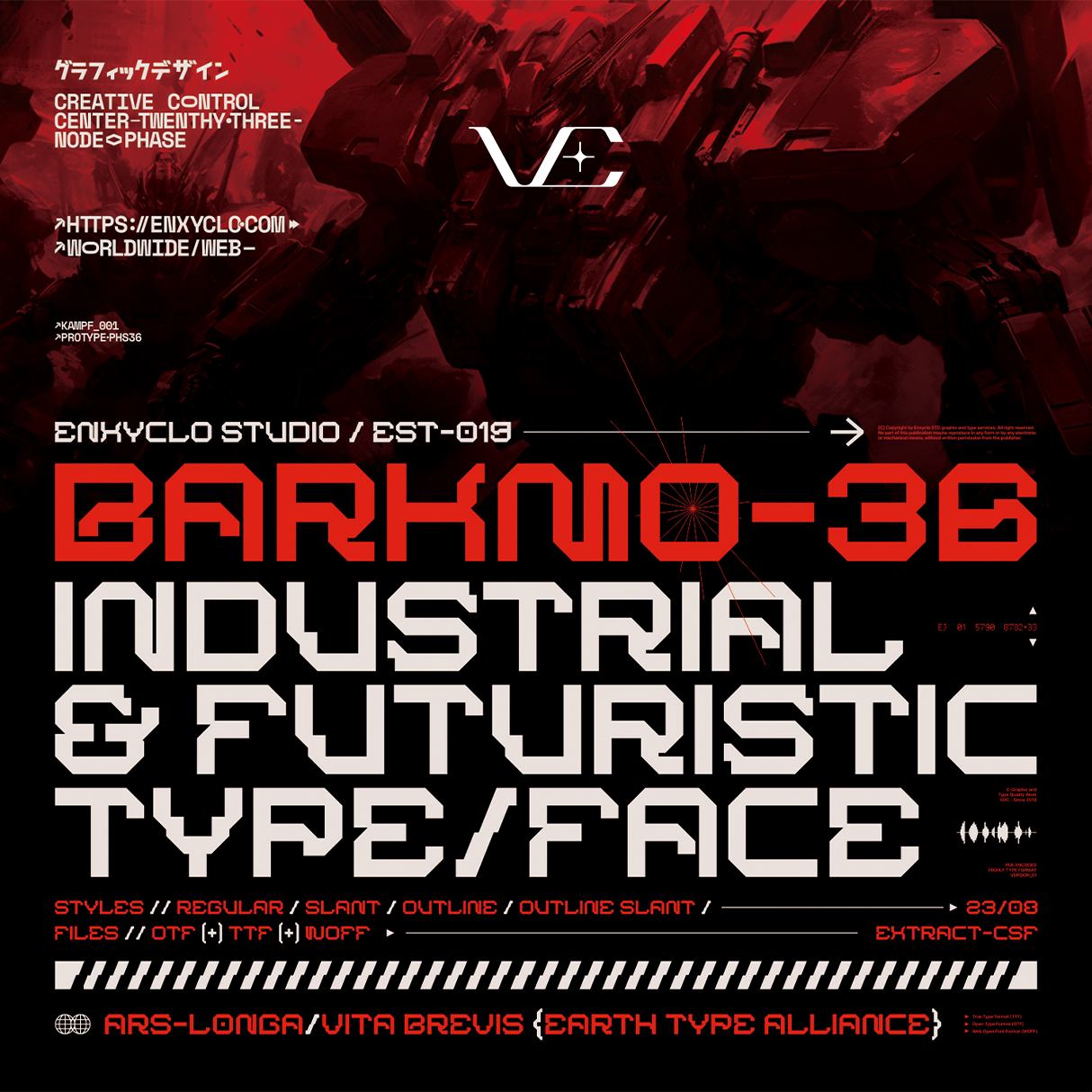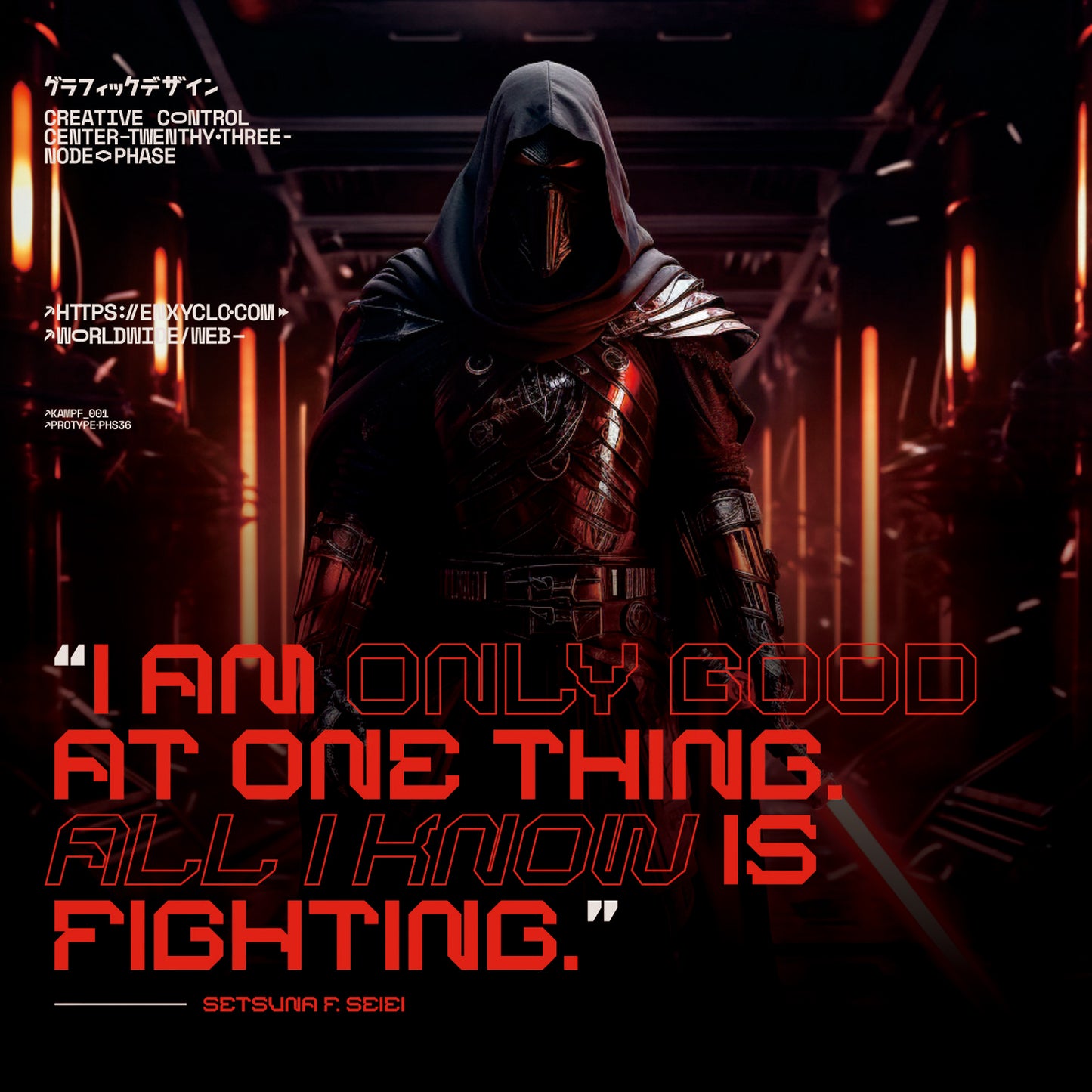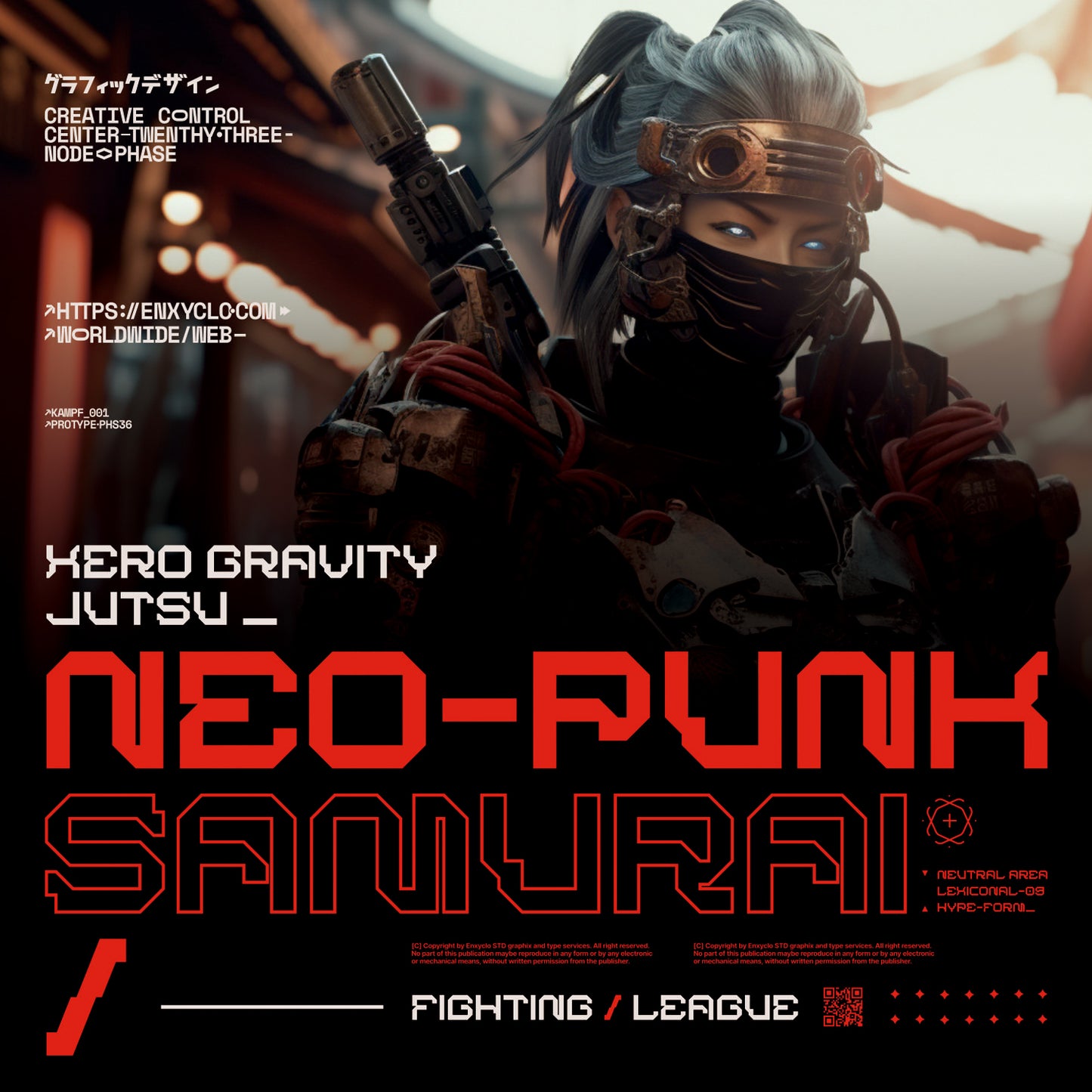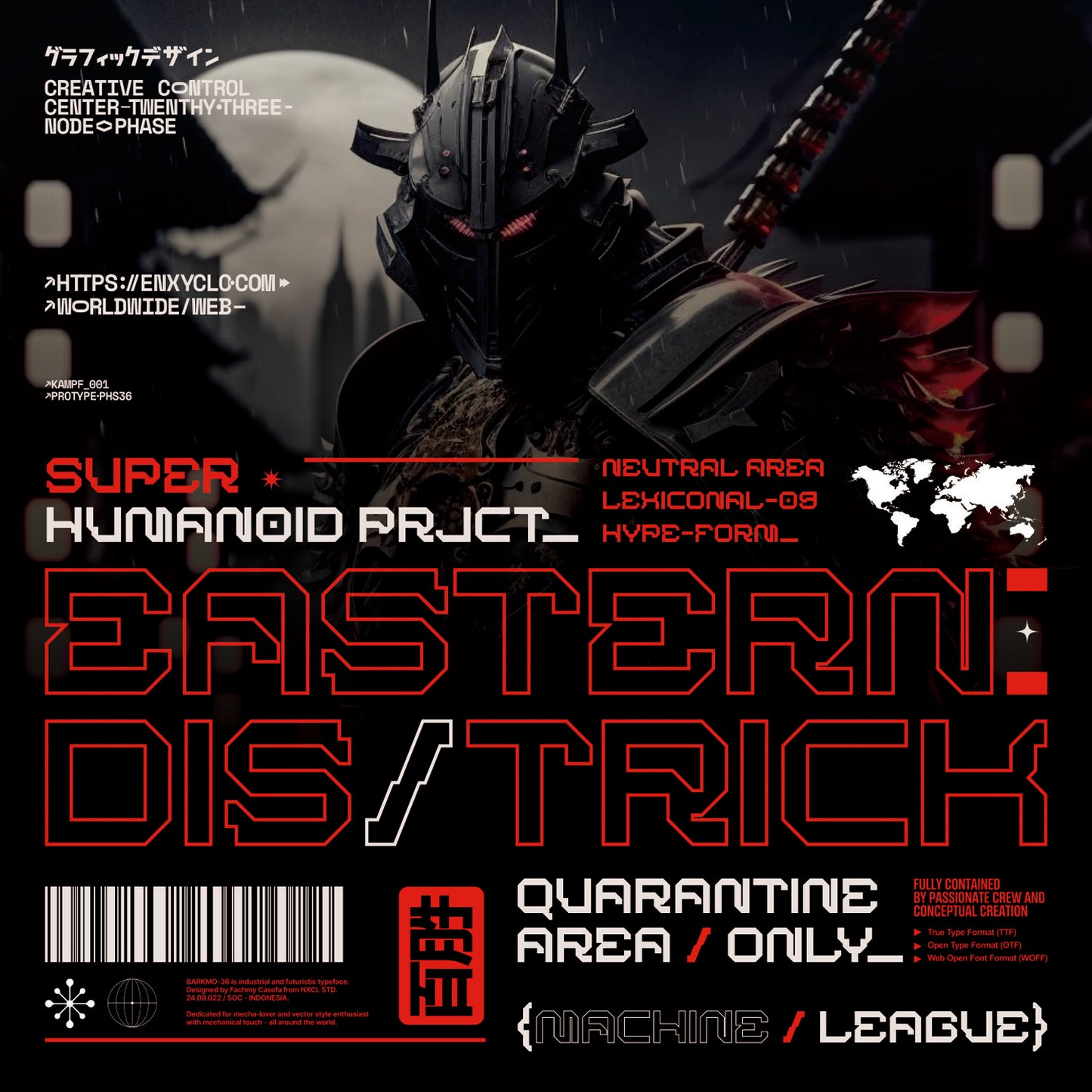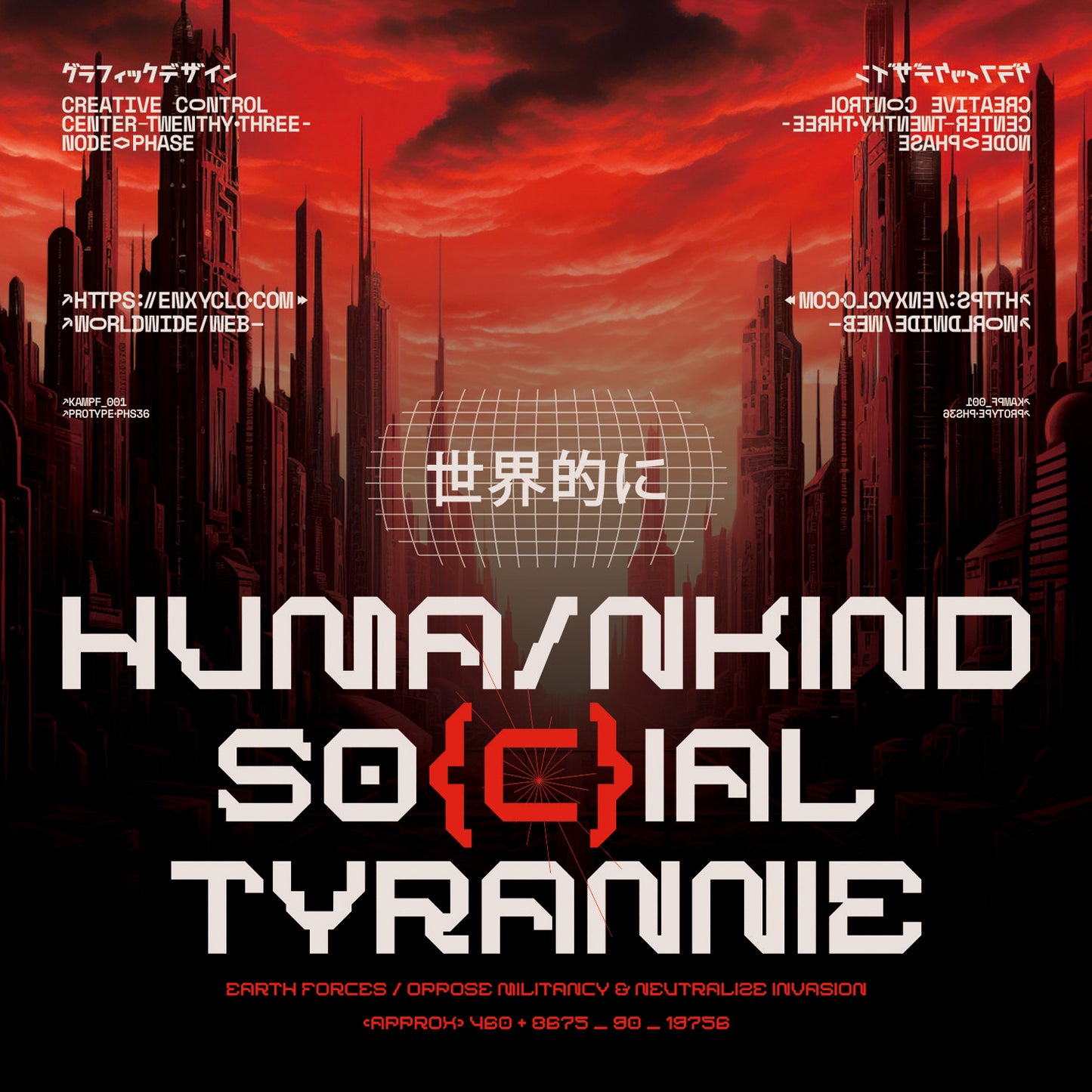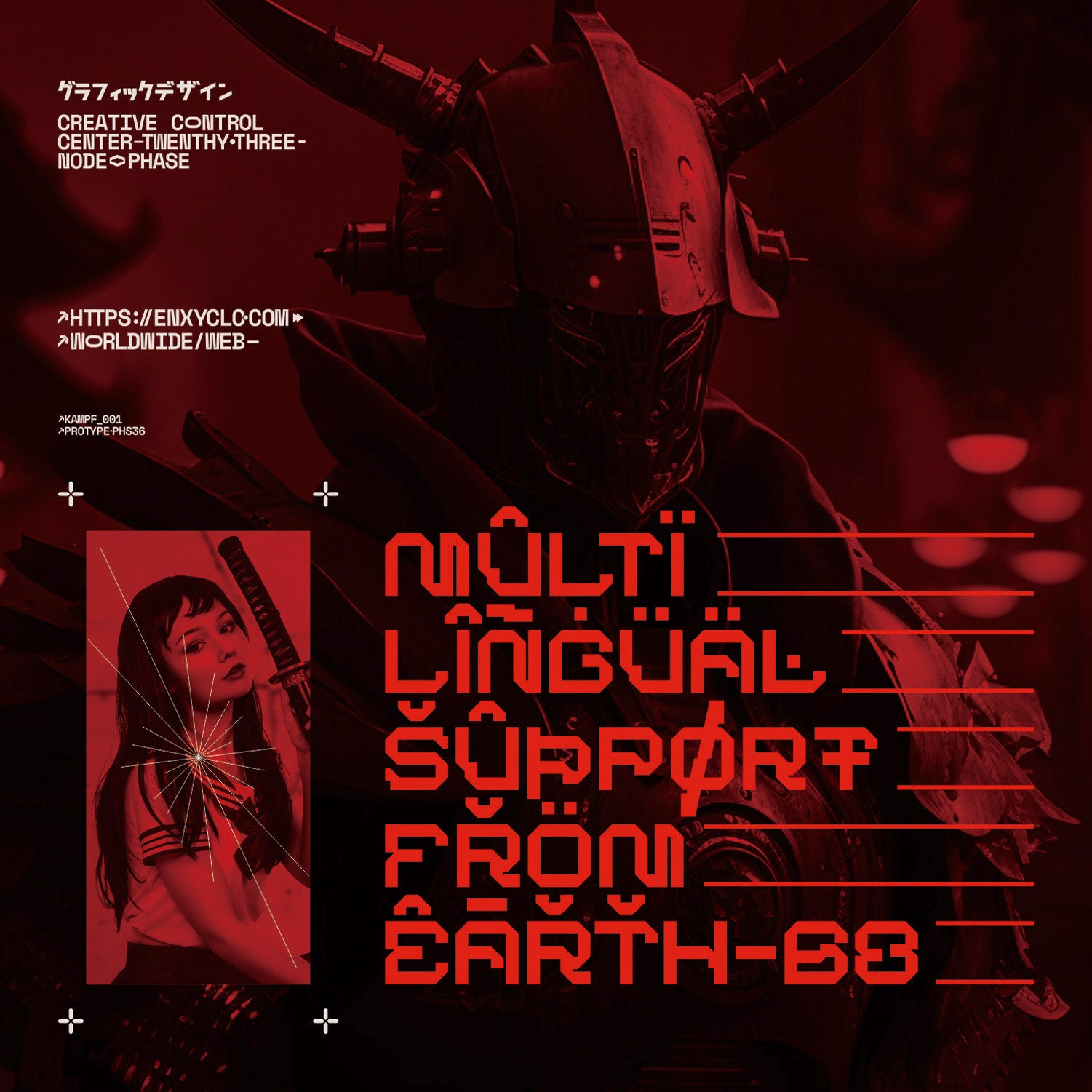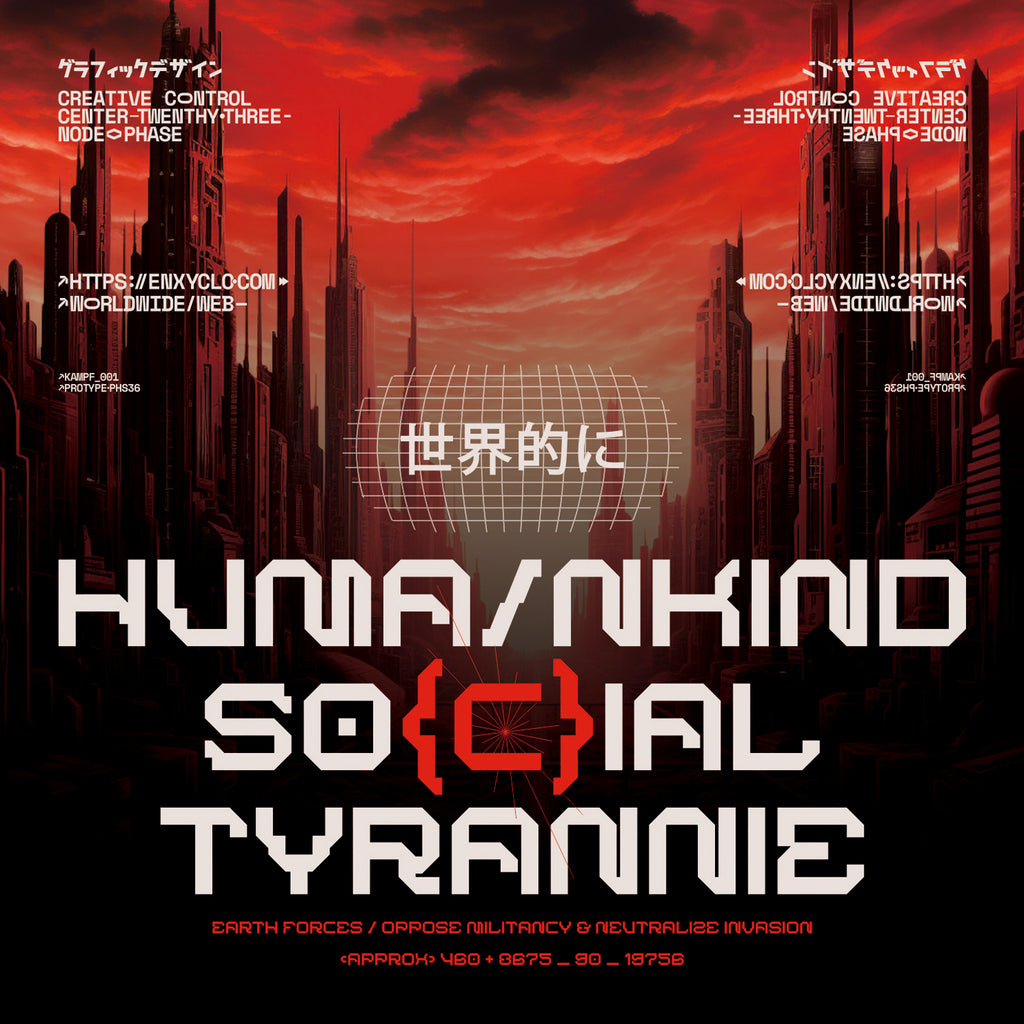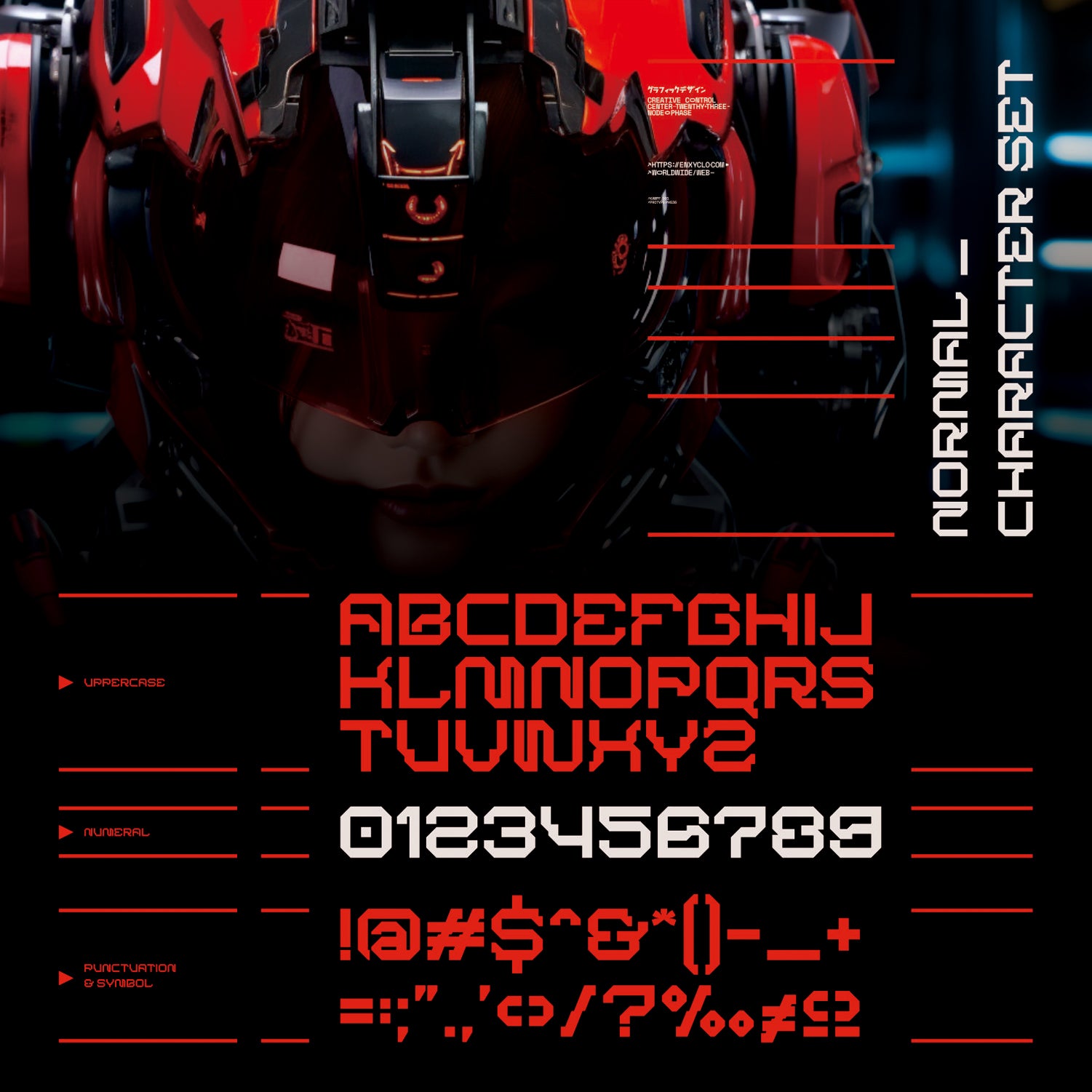
BARKMO36 • Cyberpunk Typeface
A Brutal, High-Tech Display Font for Futuristic Visuals
BARKMO36 is a cyberpunk display typeface built for designers who want sharp geometry, digital aggression, and a futuristic identity that cuts straight through the noise.
It blends angular forms, mechanical edges, and tech-driven character shapes.
Built for apparel graphics, posters, UI concepts, album covers, esports branding, motion graphics, and anything that needs a bold, high-tech type presence.
Clean digital geometry optimized for headlines + logotypes
Ideal for branding, posters, gaming visuals, and futuristic layouts
BARKMO36 brings controlled aggression to your typography.
Its angular structure and cyber-coded aesthetic make it perfect for:
Apparel + streetwear graphics
Tech branding systems
UI overlays + HUD-inspired layouts
Album covers + promo posters
Esports + gaming design language
Typography should define the tone—clean, intentional, and unmistakable.
BARKMO36 gives you a futuristic display system designed to strengthen hierarchy, command attention, and lock your visuals into a bold, modern direction.
Type. Adjust. Build with purpose.